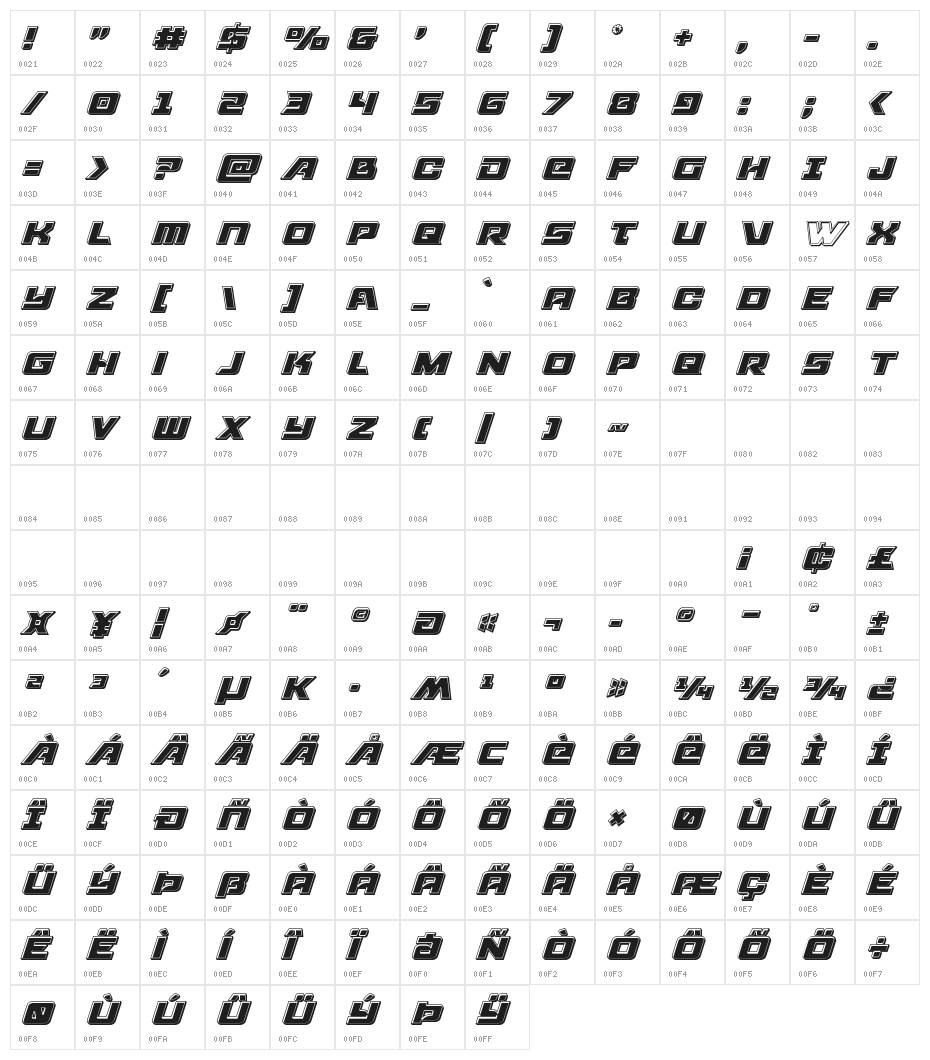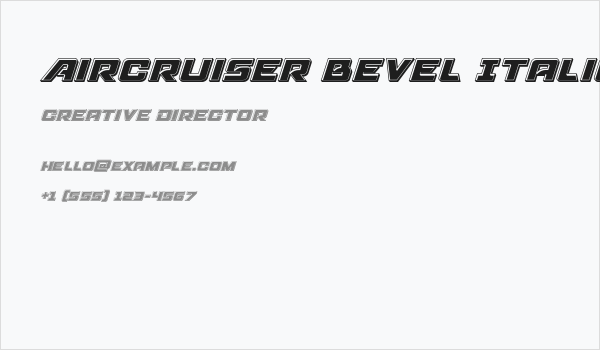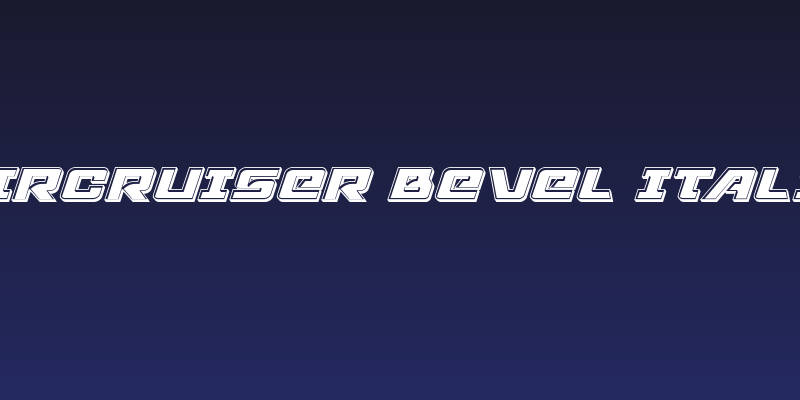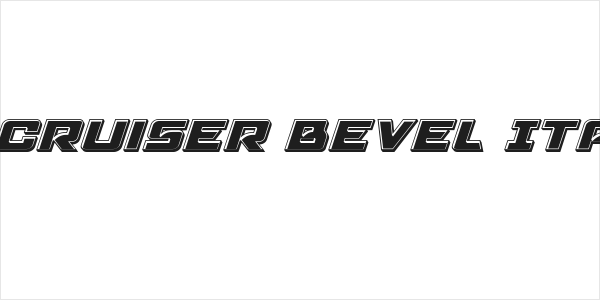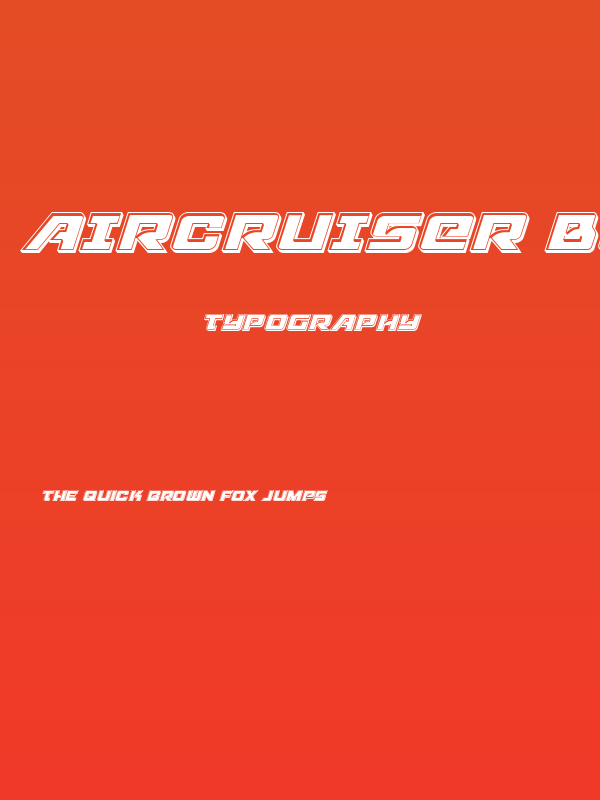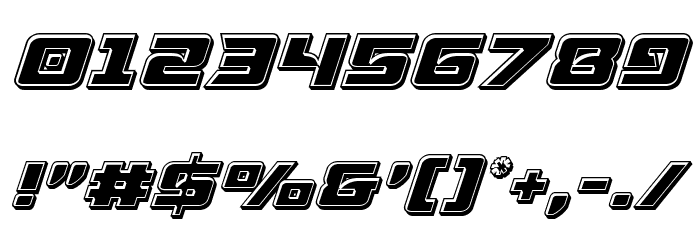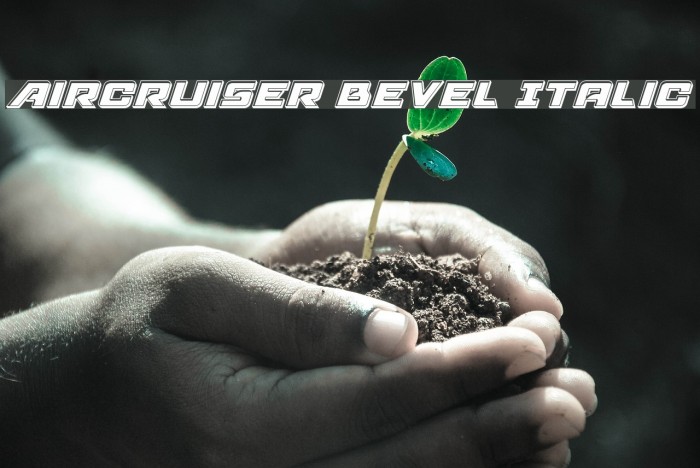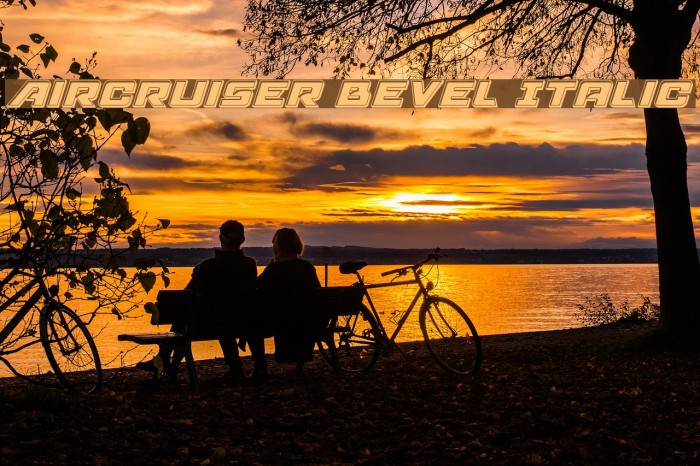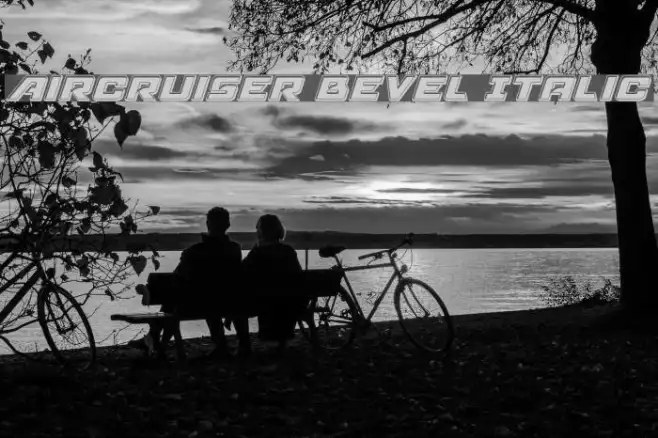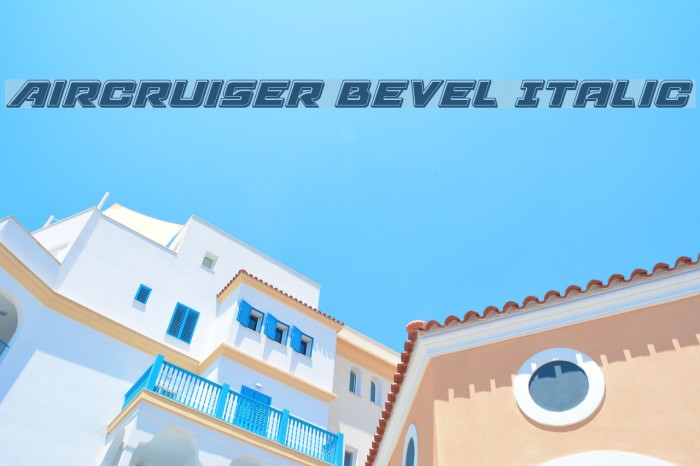
Aircruiser Bevel Italic Font
Aircruiser Bevel Italic Description
This font features a bold, italicized style with a distinct beveled edge, giving it a three-dimensional appearance. The characters are uppercase and numerals, each with a strong, angular design that conveys a sense of speed and modernity. The strokes are thick, with a medium contrast between the main strokes and the beveled edges. The overall look is dynamic and eye-catching, making it suitable for projects that require a futuristic or sporty aesthetic. The spacing between characters is normal, ensuring readability while maintaining its bold presence.
| Proposed Projects | Ideal for use in sports branding, automotive designs, video game titles, and dynamic posters. |